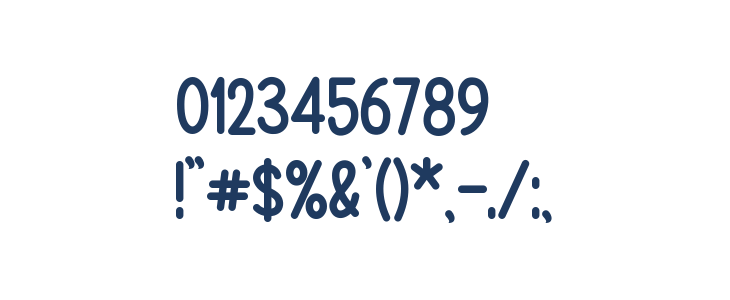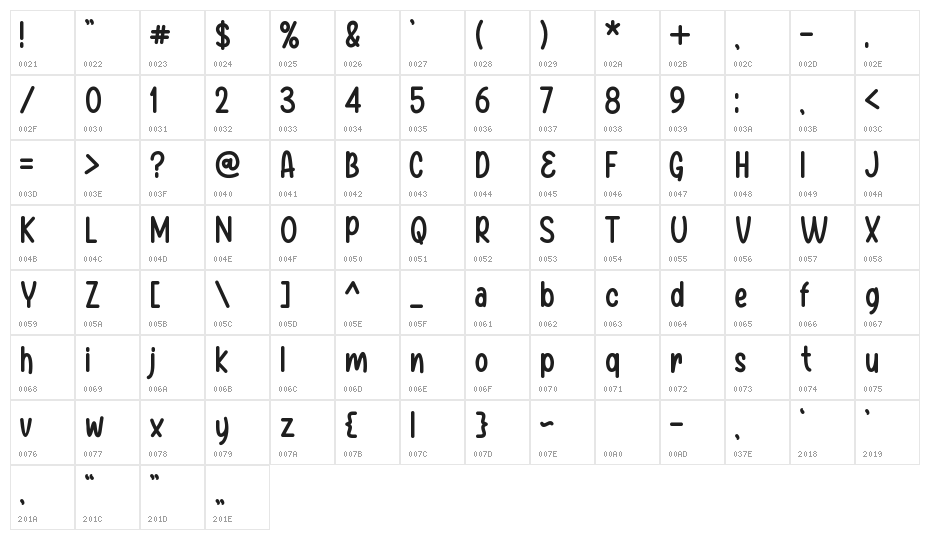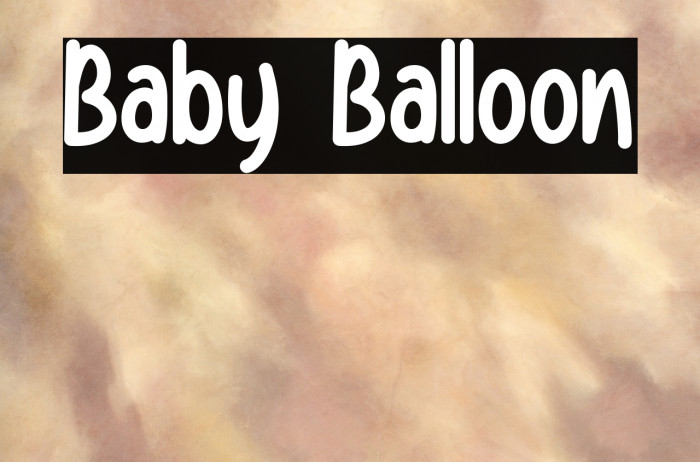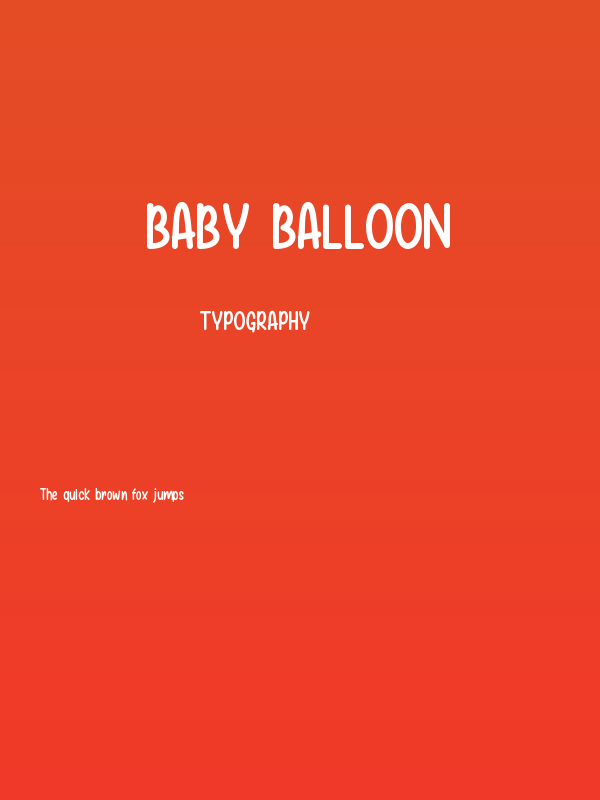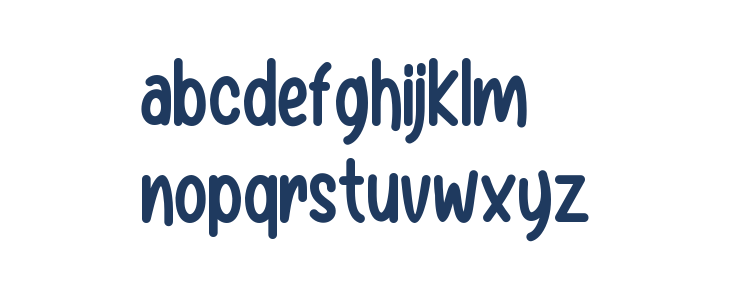
Baby Balloon Font
Baby Balloon Description
This playful and whimsical font features rounded, balloon-like characters that exude a sense of fun and lightheartedness. The letters are bold and slightly condensed, with a consistent stroke width that gives them a uniform appearance. The uppercase and lowercase letters maintain a cohesive style, while the numerals and special characters complement the overall design. The font's smooth curves and lack of sharp edges make it approachable and friendly, ideal for projects aimed at children or casual settings. Its unique style can add a touch of personality and charm to any design.
| Proposed Projects | Ideal for children's books, birthday invitations, playful branding, and casual event posters. |